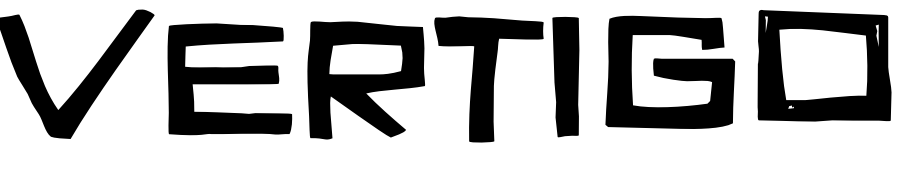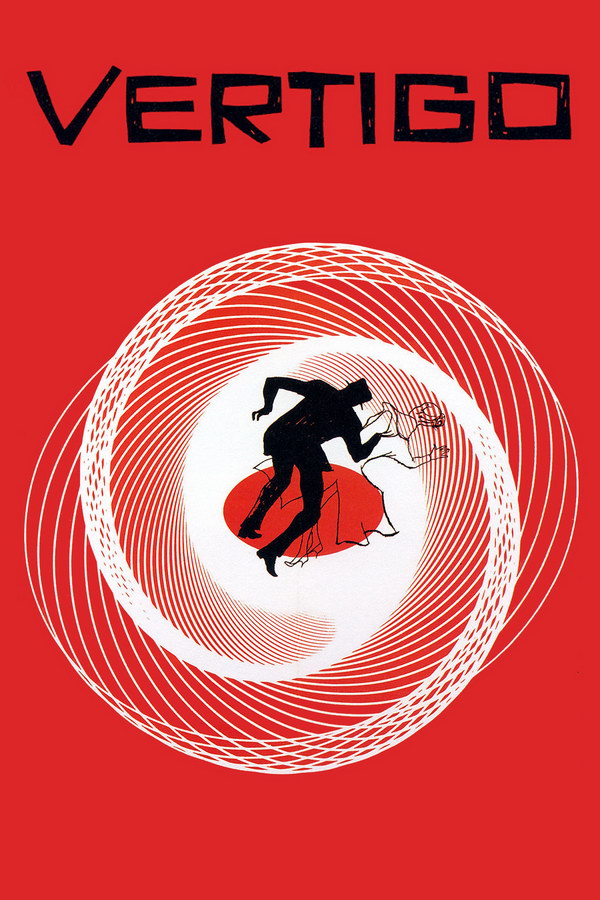
Vertigo Font
Fonts in UseVertigo is a classic 1958 suspense film directed by Alfred Hitchcock, starring James Stewart and Kim Novak. It tells the story of a retired detective who becomes obsessed with a woman he is hired to follow, leading to a series of unexpected twists and turns.
Saul Bass, creator of iconic logos such as the Bell Telephone and AT&T globe, designed the original poster for Vertigo. The lettering in the poster's title was likely done by hand, and a similar font called Vertigon, designed by Raymond Brekelmans, is available for free download, featuring only uppercase letters, numbers, and a few punctuation marks.